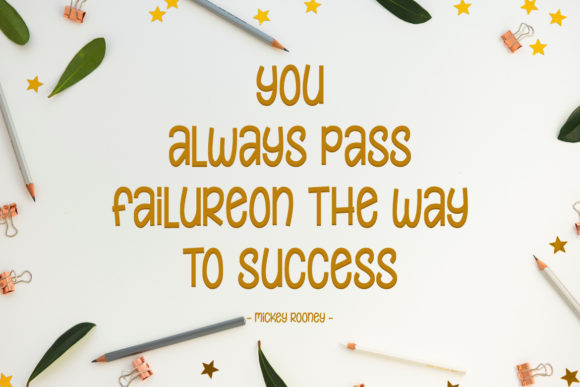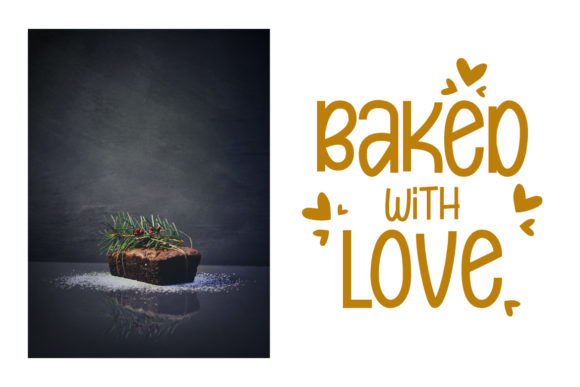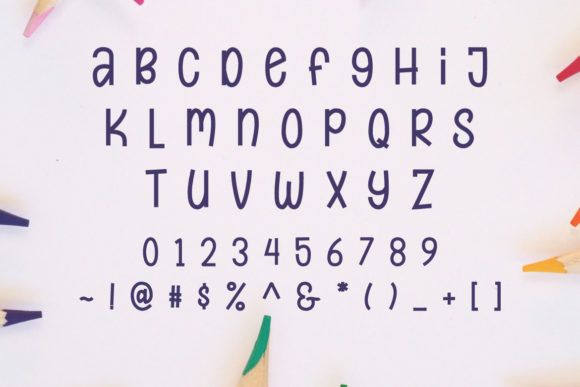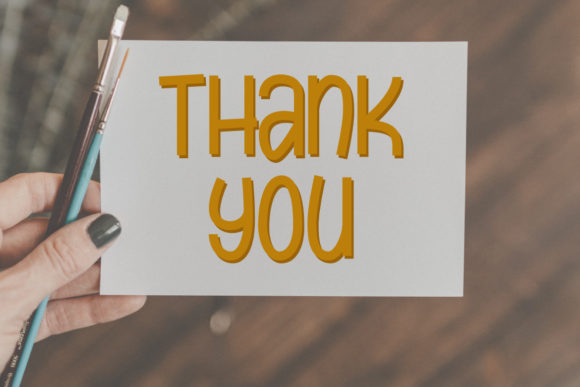
Introduction to Paperclip Font
Have you ever found yourself staring at a blank canvas, a sheet of paper, or a digital design space, desperately searching for the perfect font to bring your creative project to life? I know I have. It’s that moment of frustration, when every font you’ve tried just doesn’t seem to capture the essence of your vision.
That’s when I stumbled upon the enchanting Paperclip Font – a stunning pairing of a brush pen and pencil that makes it look incredibly endearing and authentic. This gorgeous and unique font is a game-changer for designers, offering a free download option that’s perfect for any project, from personal DIY crafts to high-quality commercial designs.
With its transparent background and high-quality design, Paperclip Font is a valuable resource for creatives who crave unique and eye-catching typography. Whether you’re working on a design project or simply want to add a personal touch to your handmade crafts, this font is sure to elevate your work and make it stand out from the crowd.
Key Features of Paperclip Font
- Unique, minimalist design with a transparent background, ideal for designers
- Perfect design resource for logos, branding, and other visual identity projects
Honest Review: Paperclip Font
I recently stumbled upon the Paperclip Font, and I must say, it’s a pretty interesting addition to my design resource library. As a designer, I’m always on the lookout for unique and versatile fonts to use in my creative projects.
One of the things that stands out about this font is its ability to be used with a transparent background, making it perfect for overlaying text on images or videos. This is especially useful when creating interactive designs for web or mobile applications.
- Unique and quirky design
- Works well with a transparent background
- May not be suitable for formal or professional projects
- Limited character set (only uppercase and lowercase letters)
- No bold or italic versions available
Overall, I think the Paperclip Font is a fun and creative addition to any design library. While it may have some limitations, it’s definitely a high-quality resource that can add a unique touch to your projects. If you’re looking for a quirky font to use in your next creative project, I’d definitely recommend checking out the Paperclip Font. ✨
Use the Paperclip Font in combination with other design resources to create unique and visually appealing designs. Experiment with different font sizes, colors, and combinations to find the perfect look for your project.
The Paperclip Font is perfect for creative projects such as brochure design, flyer design, and social media graphics. It’s also great for adding a personal touch to presentations, documents, and websites.